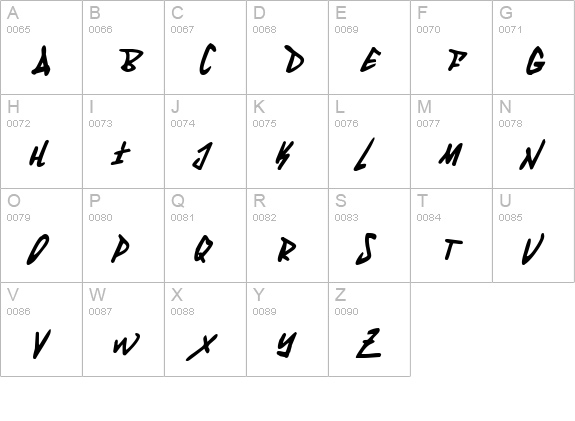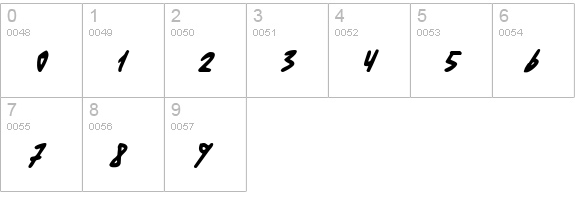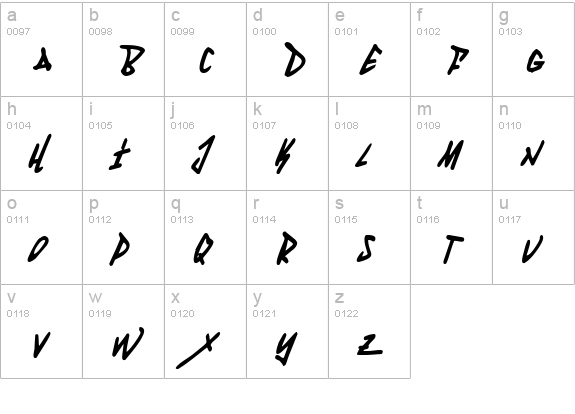
Fantom Condensed Italic is a distinctive, condensed-width, italic variant in the Fantom typeface family \xE2\x80\x94 well suited to design and typography projects.
The Fantom Condensed Italic font exudes a sense of modern sophistication and elegance with its sleek and stylish design. The italicized slant adds a touch of flair and dynamism to any text, making it perfect for adding a touch of creativity to your projects. The condensed form of the font allows for efficient use of space while maintaining readability and impact. What sets Fantom Condensed Italic font apart is that it is not only visually appealing but also free for anyone to download and use. This versatile font can be used for a wide range of design projects, from branding and advertising to web design and social media graphics. Whether you're looking to add a touch of sophistication to your next project or simply want to experiment with a new font style, Fantom Condensed Italic font is the perfect choice. Experience the creativity and versatility of Fantom Condensed Italic font by downloading it for free at FontsMarket.com. Add a touch of modern elegance to your designs with this unique and stylish font today!